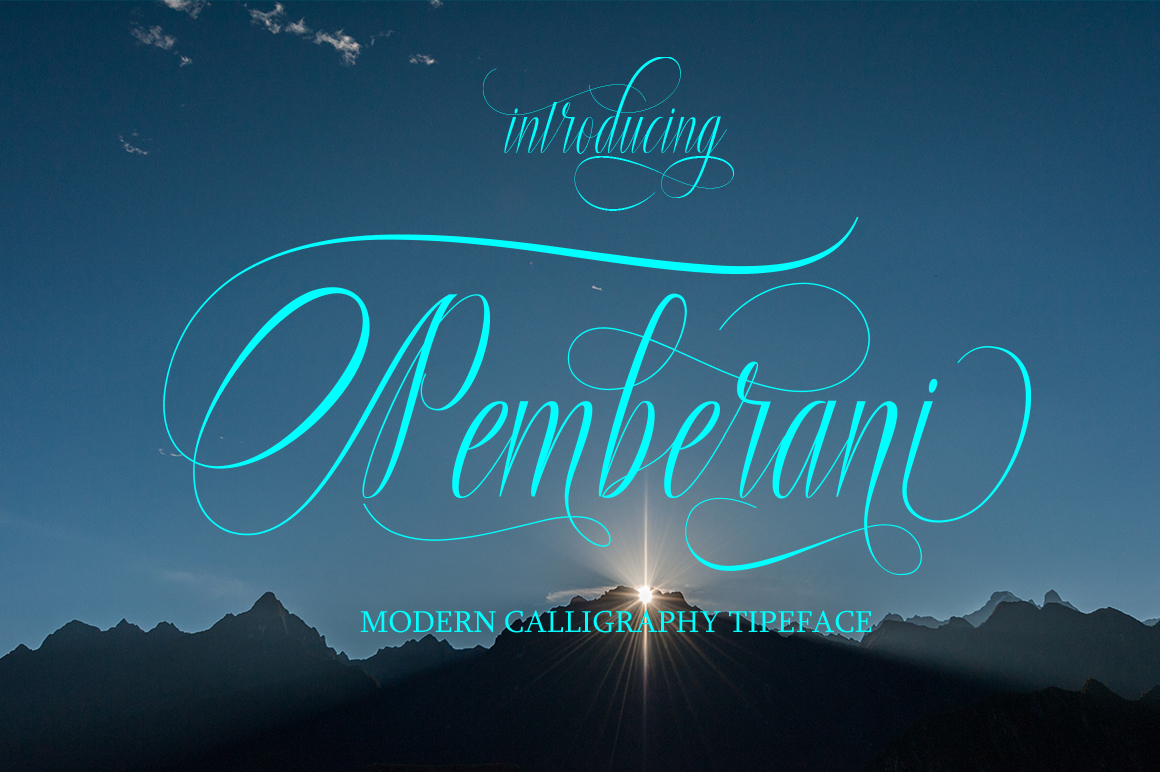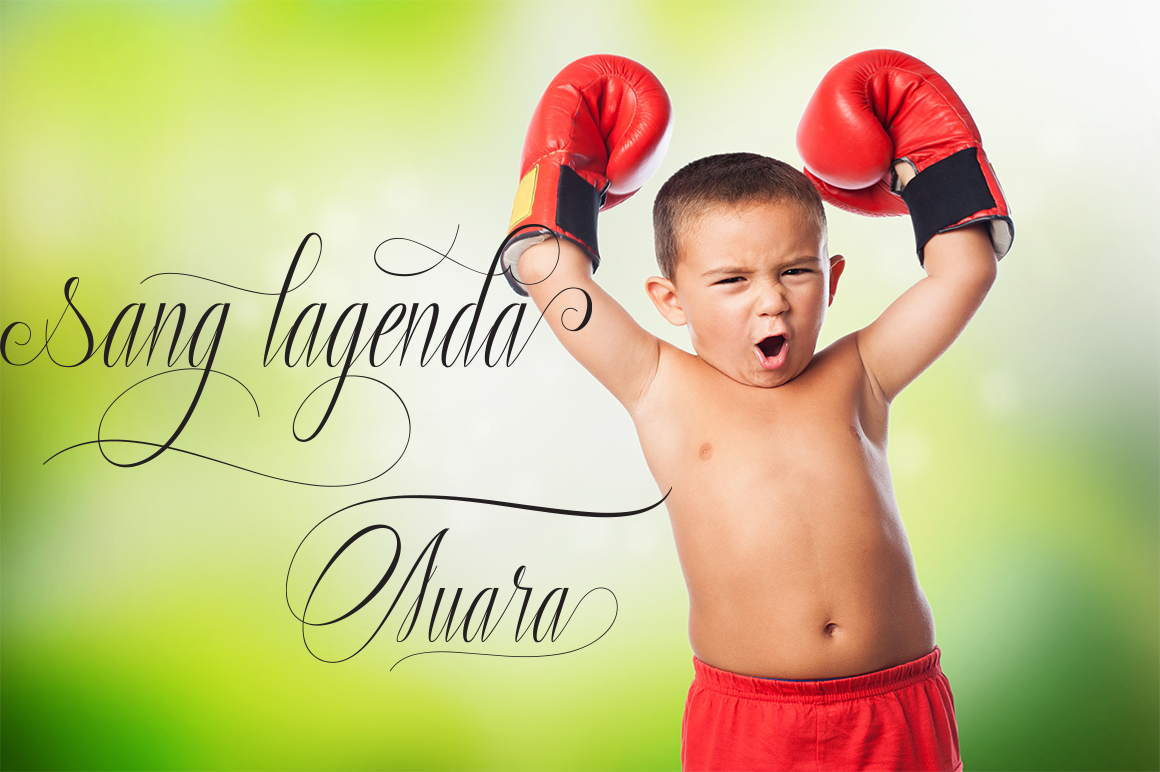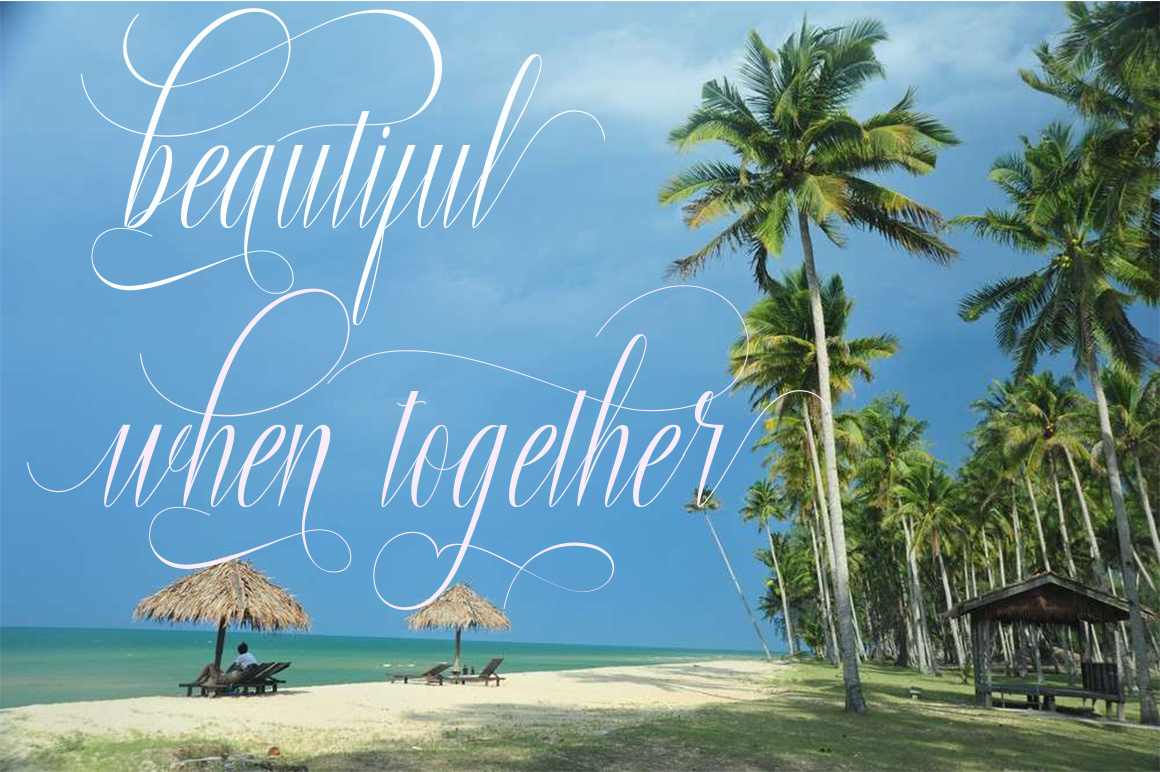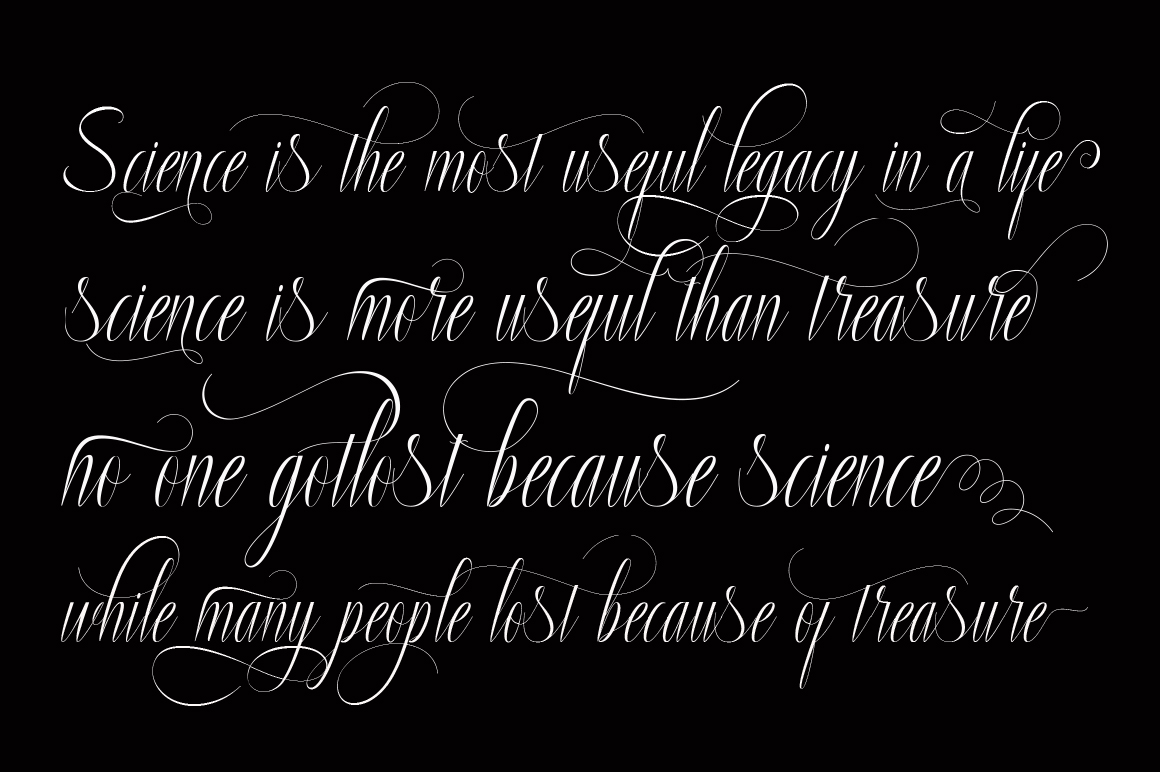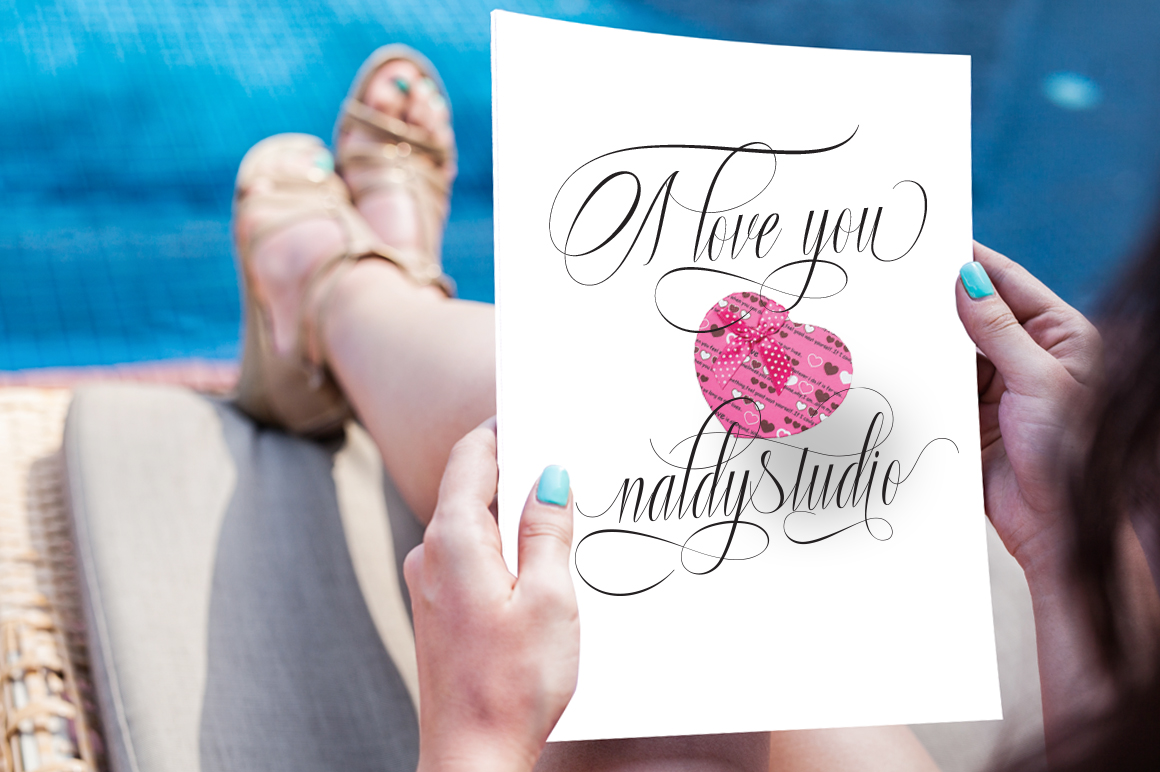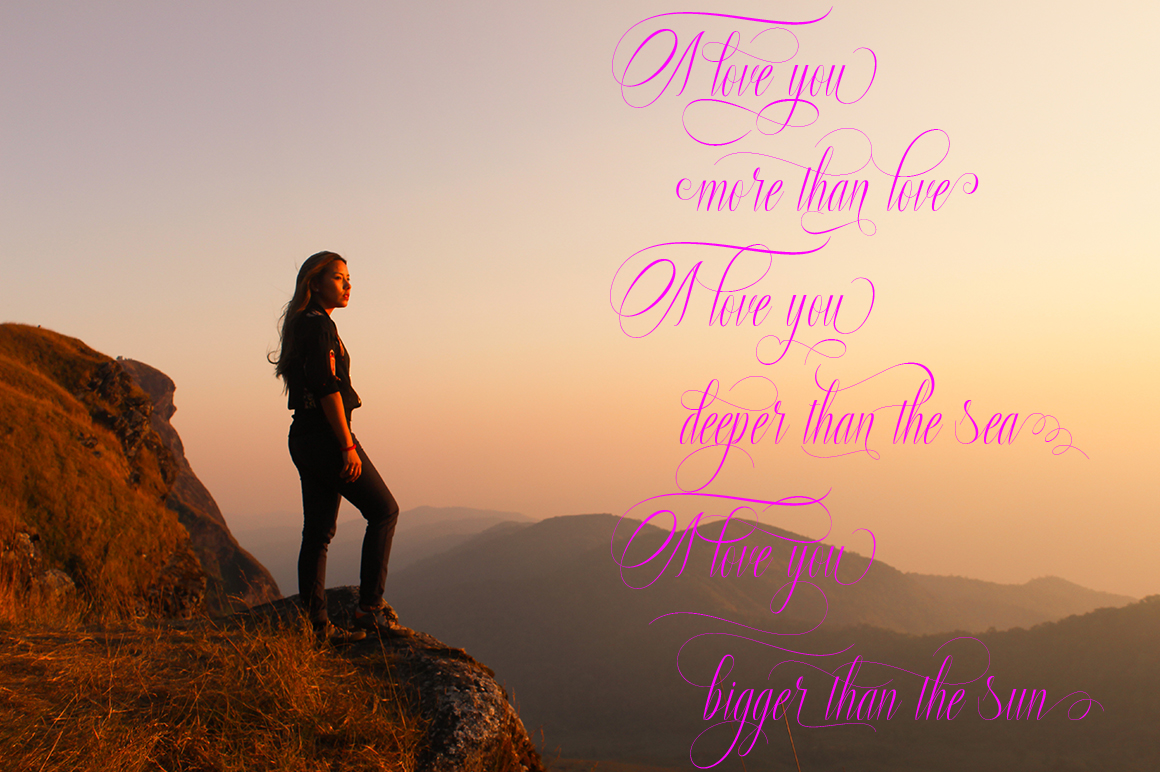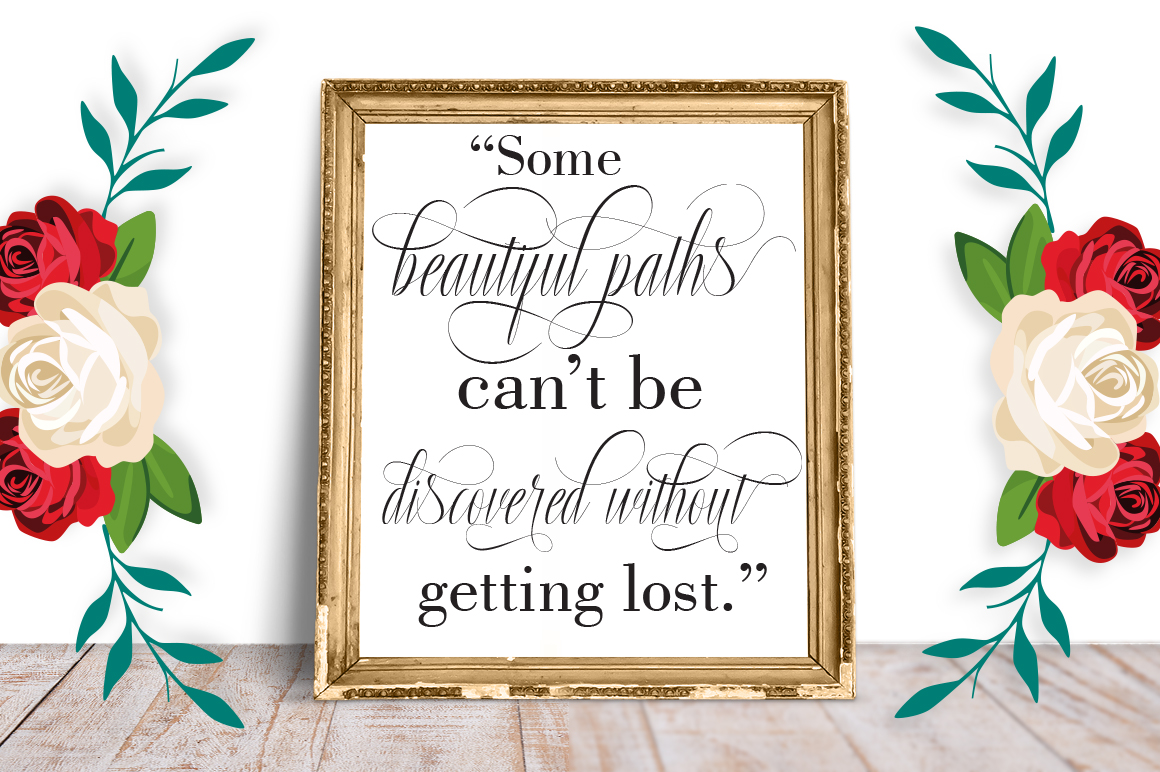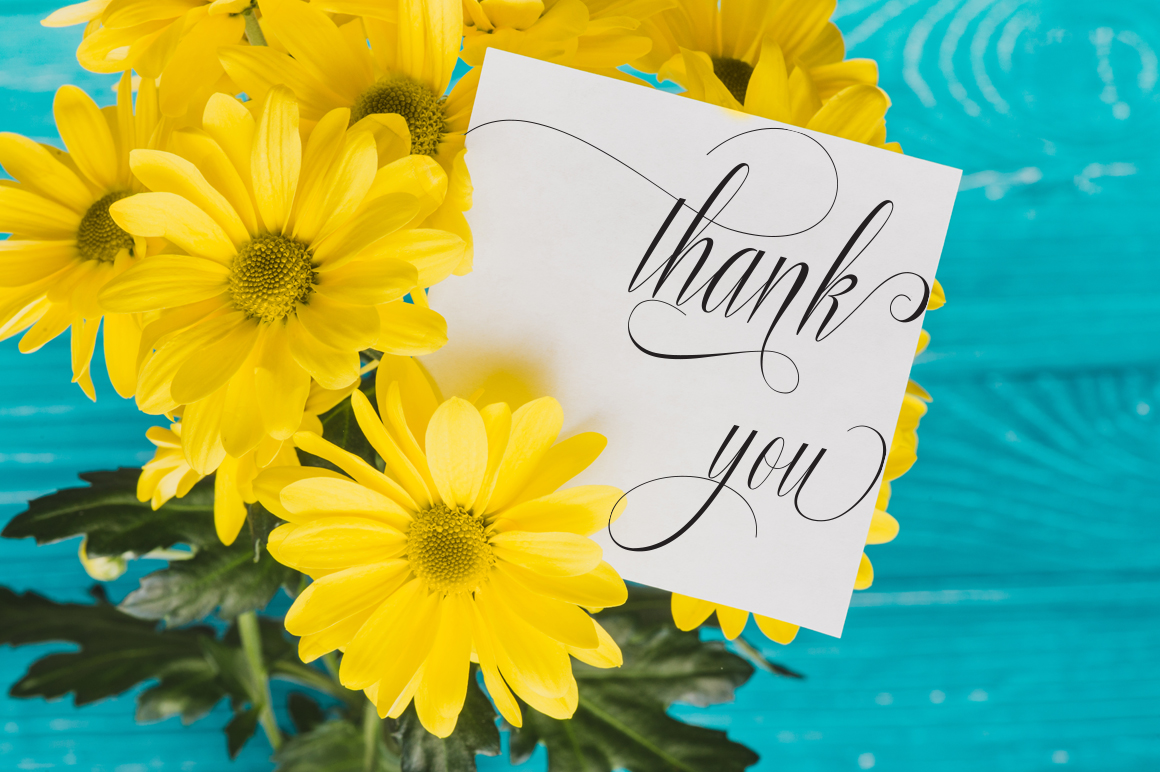
Pemberani Font
About Pemberani Font
Pemberani is a stunning, intricate modern calligraphy font that was designed to give your designs a stylized yet inspired feel. With a natural handwriting style, this font is a great way to give your projects an ornate yet relaxed feel.